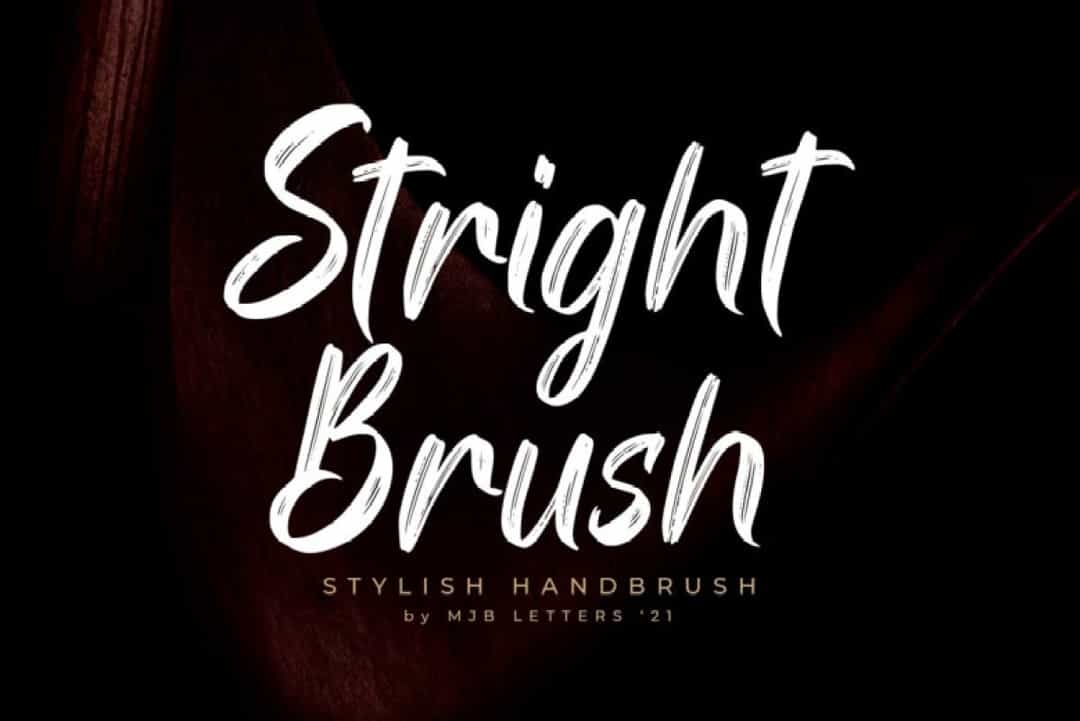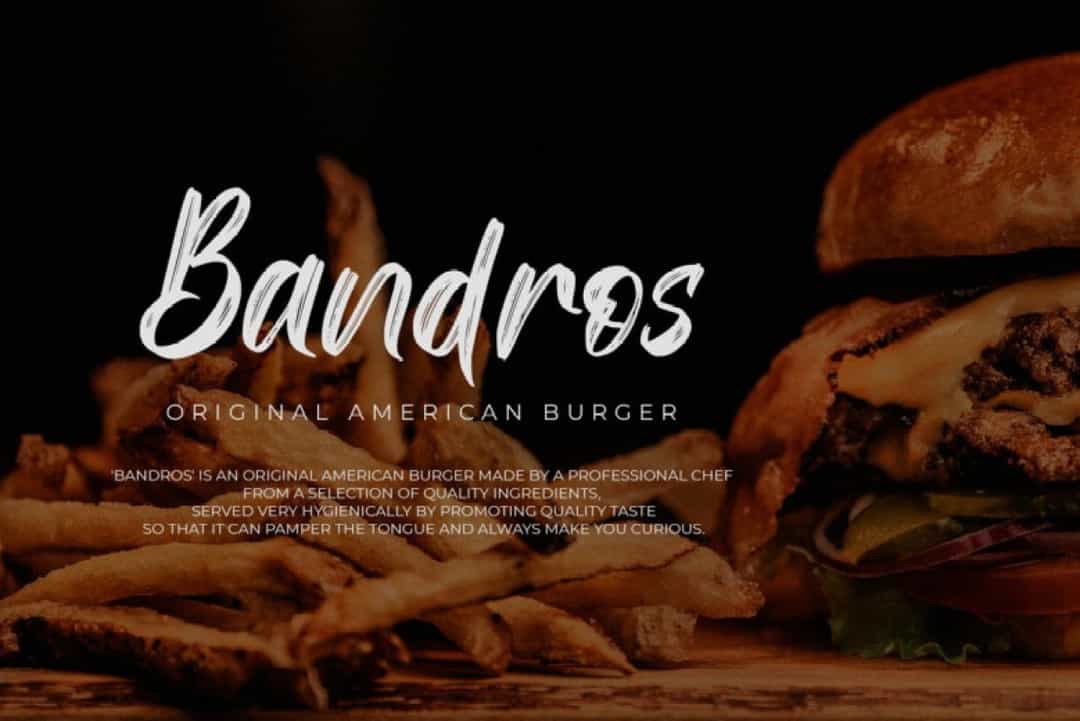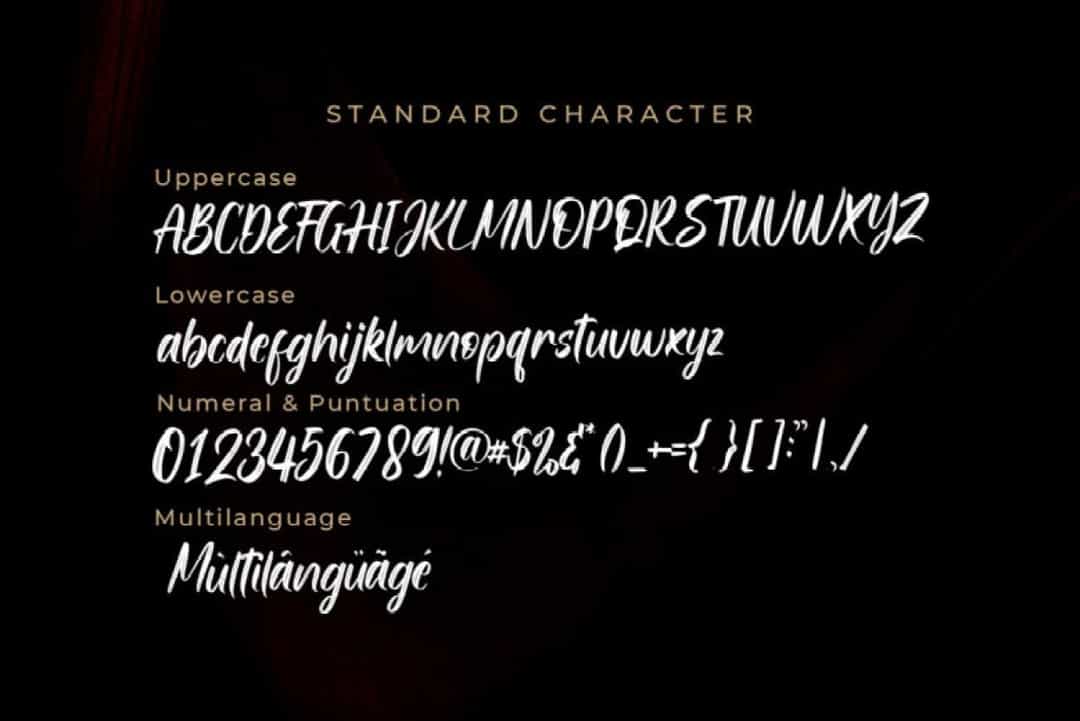
Stright is a very solid brush font with natural texture that is perfect for such purposes as logos, products, labels, watermarks, social networks, invitations, clothing, advertising boards, sports clubs, celebrations, events and any other purposes that imply handwriting.